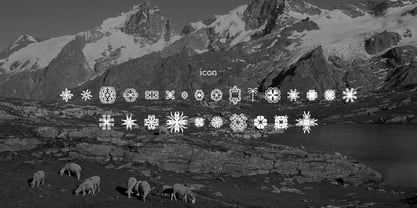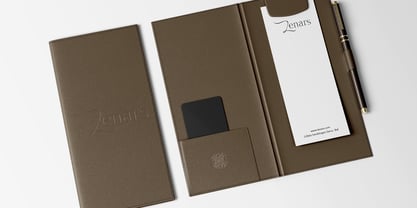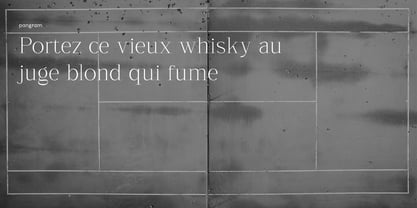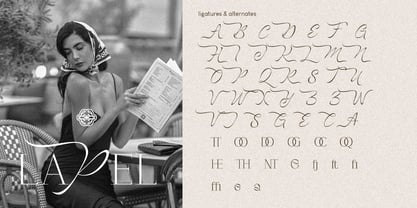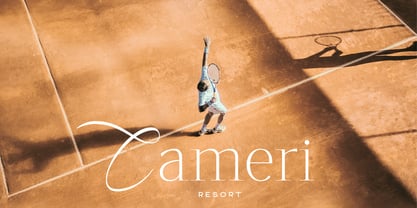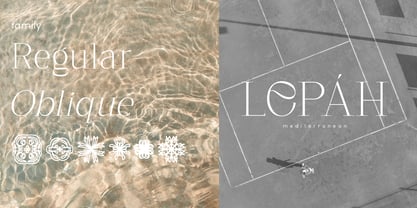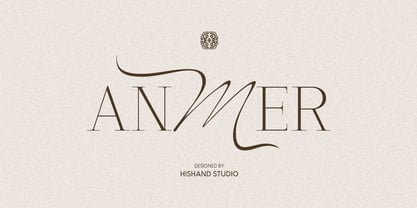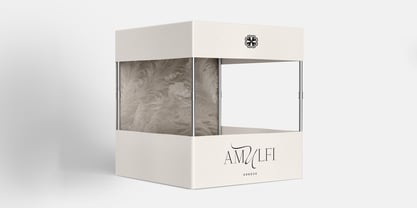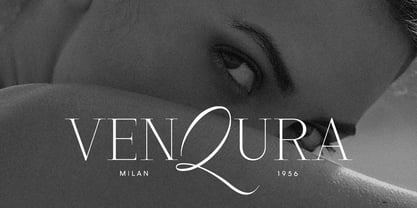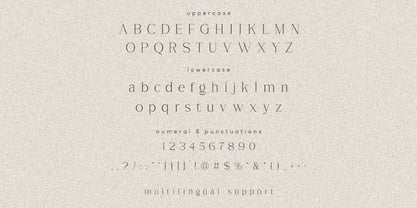
Anmer
Anmer is a mixed font blending serif and script. Most of the letters follow a clean, structured serif form, classic proportions, fine stroke contrast, small precise serifs, while a script character breaks the pattern with a flowing, connected style that loops above and below the baseline. The two styles sit side by side in the same word, serif discipline against script movement, and that contrast is the whole point of the design.
Anmer works best where a brand wants to feel established but not stiff. Think fashion labels, perfume packaging, wedding stationery, editorial headers, or any logotype that needs one unforgettable curve. It reads well large, holds its personality at small sizes too, and pairs easily with a plain sans for body text. Serif and script together, balanced in one word. Complete with
- ligatures
- alternates
- regular
- Oblique
- icon
- kerning
- multilingual support